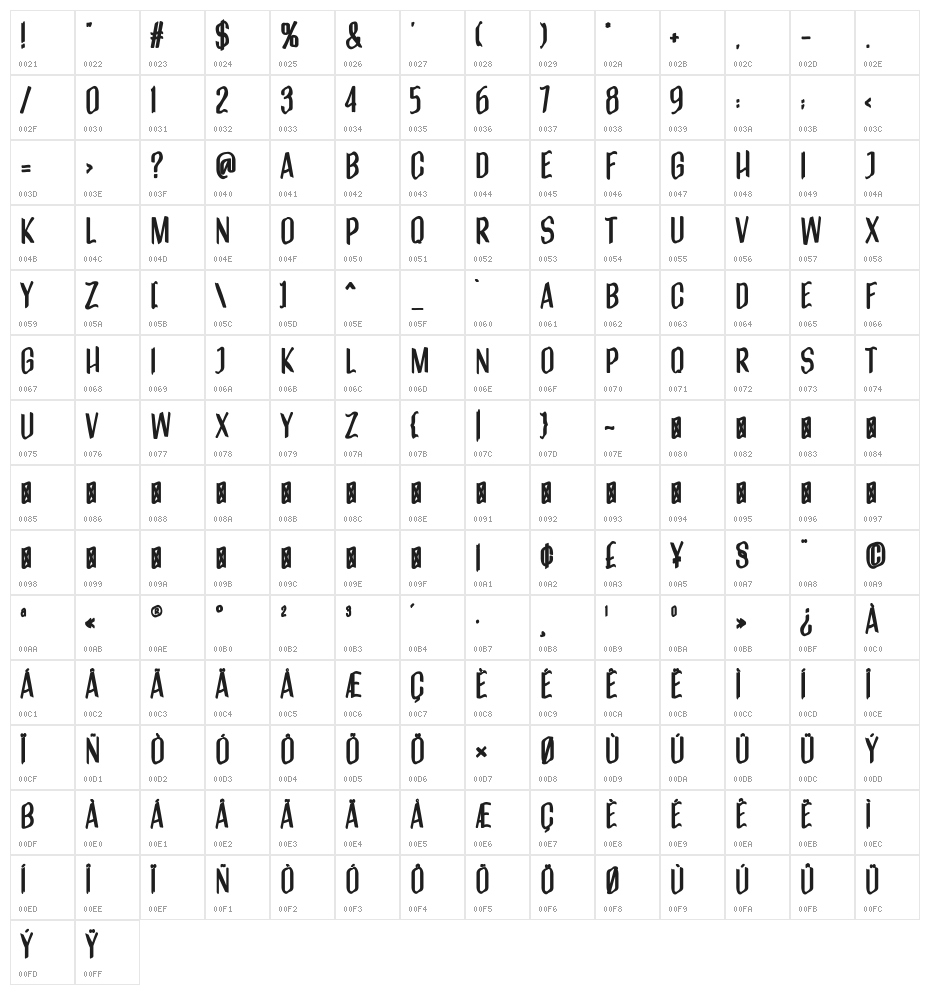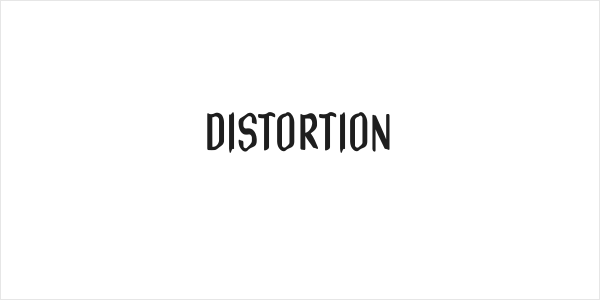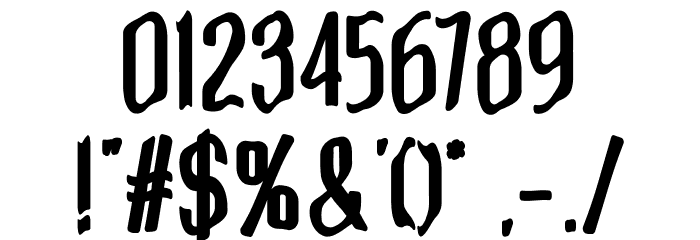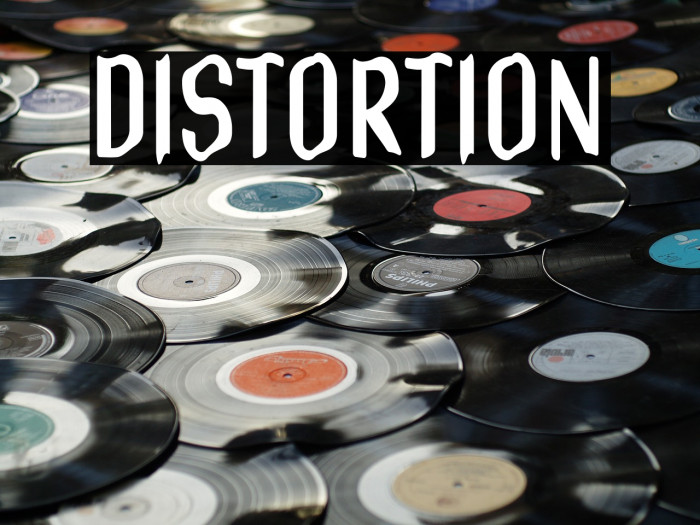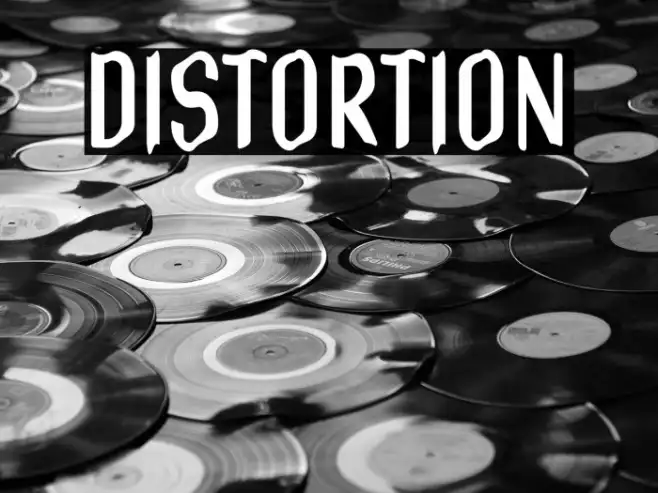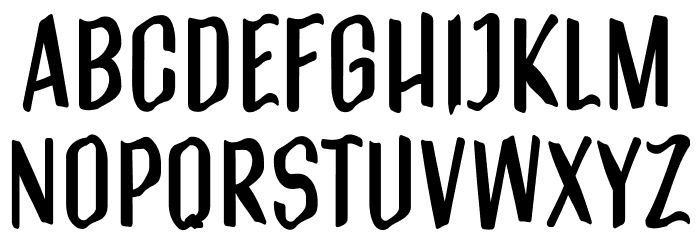
Distortion Font
Distortion Description
This font features a bold and dynamic style with a slightly distorted appearance, giving it a unique and edgy look. The characters are tall and narrow, with a consistent stroke width that maintains readability while adding a touch of modern flair. The uppercase letters have a distinctive angularity, while the lowercase letters mirror this style with a slightly more relaxed form. Numbers and special characters are crafted to match the overall aesthetic, making this font versatile for various design needs. Its boldness and distinctiveness make it suitable for attention-grabbing headlines or creative branding projects.
| Proposed Projects | Ideal for music album covers, edgy branding, poster designs, and modern digital art. |